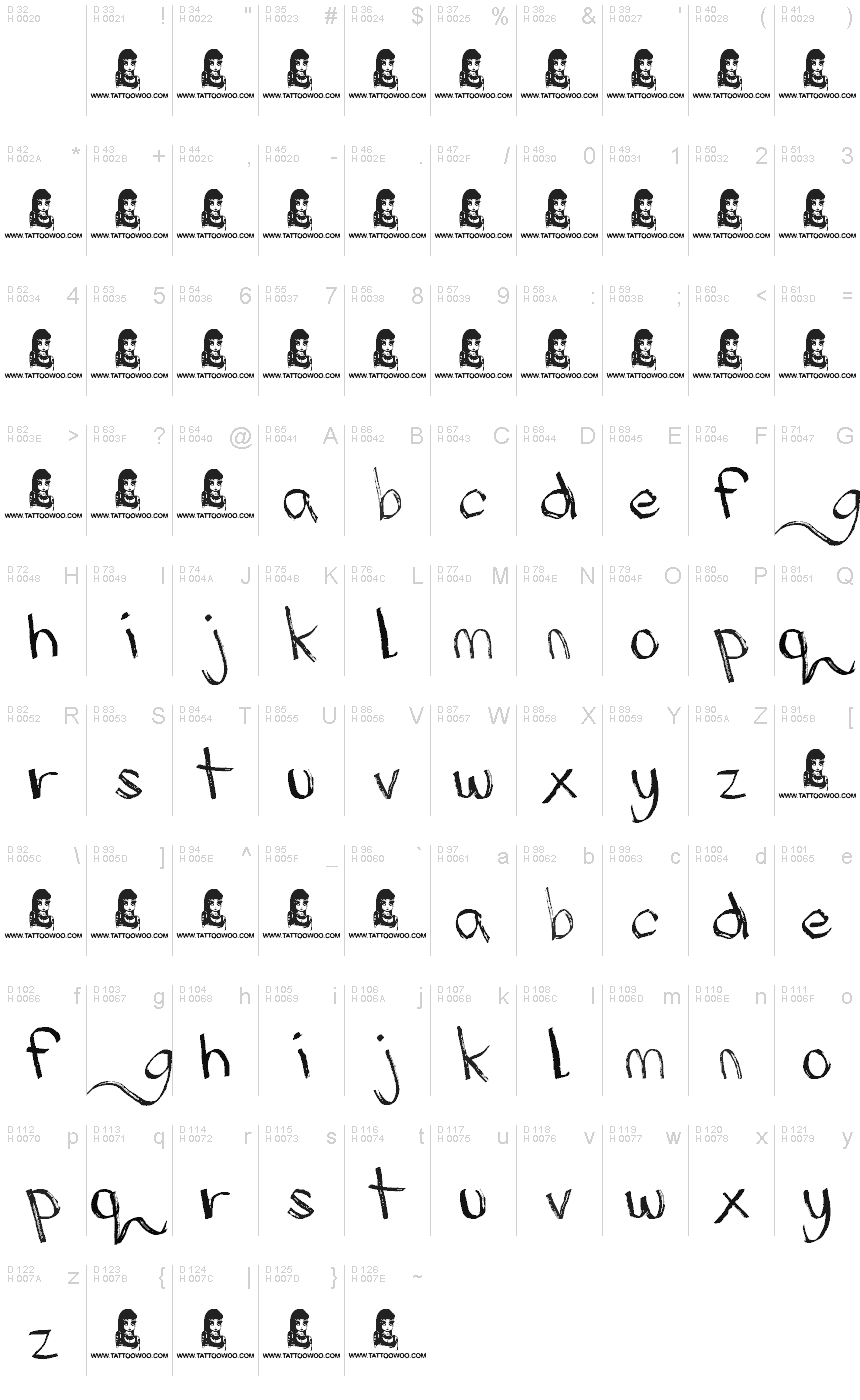
School Holiday
School Holiday, a creation by TattooWoo.com, is a brush-style font that exudes an air of casual charm and spontaneous energy. Its semi-light weight gives it a delicate touch while still maintaining legible forms, making it an excellent choice for designs that require both personality and readability.
The aesthetic appeal of School Holiday lies in its handcrafted essence; each character appears to be painted with swift, confident strokes akin to those found in contemporary art. This font embodies the carefree joy of its namesake, evoking memories of doodles on the margins of notebooks during idle classroom moments.
Ideal for projects aiming to convey warmth and approachability, School Holiday's style is versatile enough to enhance anything from invitations and greeting cards to social media graphics and branding materials. Whether you're looking to inject a human touch into your creative work or crafting something with an intimate feel, School Holiday stands out as a font with heartfelt character and stylistic flair.